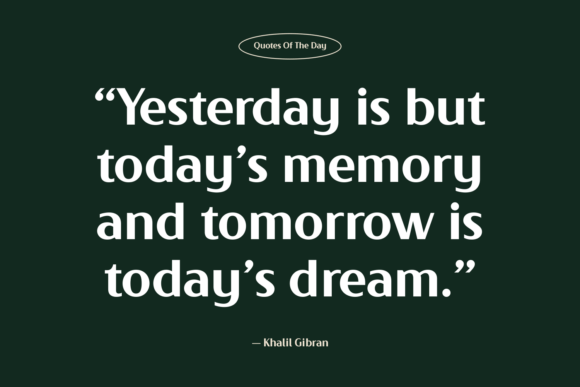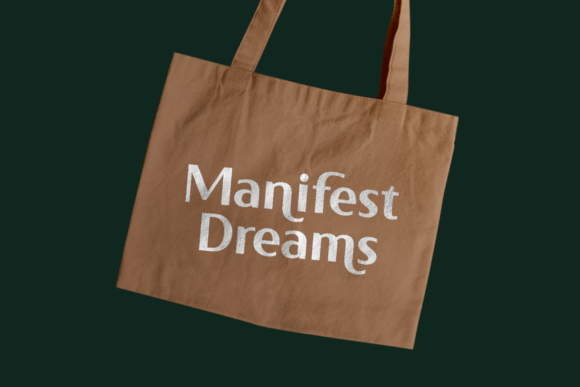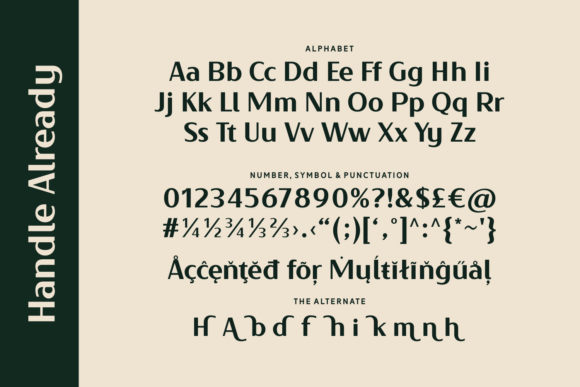
Introducing Handle Already: The Modern Sans Serif Font for Sophisticated Design
In the world of typography, a font can make or break a design. For designers and crafters looking for a unique and elegant sans serif font, Handle Already is the perfect choice. This modern font boasts a high-contrast design with sophisticated curves, making it ideal for branding, headlines, and lifestyle design.
A Unique and Elegant Design
Handle Already is a one-of-a-kind sans serif font that combines clean lines with elegant curves. Its high-contrast design gives it a distinctive look that sets it apart from other fonts in the same category. The font’s unique design makes it perfect for designers who want to add a touch of sophistication to their work.
[Image: A promotional image for “Handle Already,” a modern sans serif font. The font itself is a unique, high-contrast sans serif with elegant curves, making it ideal for sophisticated branding, headlines, and lifestyle design.]
Perfect for Branding and Headlines
Handle Already is designed to make a statement. Its elegant curves and high-contrast design make it perfect for branding and headlines. The font is easy to read, even at small sizes, making it ideal for use in a variety of design applications, from business cards to billboards.
Lifestyle Design and Beyond
Handle Already is not just limited to branding and headlines. Its unique design makes it perfect for lifestyle design, including fashion, beauty, and luxury brands. The font’s sophisticated look and feel make it ideal for use in a variety of design applications, including:
- Fashion branding and advertising
- Beauty and cosmetics packaging
- Luxury product design
- Restaurant and bar menus
- Travel and hospitality branding
Why Choose Handle Already?
There are many fonts available that claim to be modern and elegant, but Handle Already stands out from the crowd. Here are just a few reasons why designers and crafters should choose Handle Already:
- Unique design: Handle Already has a one-of-a-kind design that sets it apart from other fonts.
- Elegant curves: The font’s elegant curves add a touch of sophistication to any design.
- High-contrast design: The font’s high-contrast design makes it easy to read, even at small sizes.
- Versatile: Handle Already can be used in a variety of design applications, from branding and headlines to lifestyle design.
In conclusion, Handle Already is a modern sans serif font that is perfect for designers and crafters looking for a unique and elegant design. Its high-contrast design and elegant curves make it ideal for branding, headlines, and lifestyle design. With its versatility and sophisticated look and feel, Handle Already is a must-have font for any designer or crafter looking to add a touch of elegance to their work.